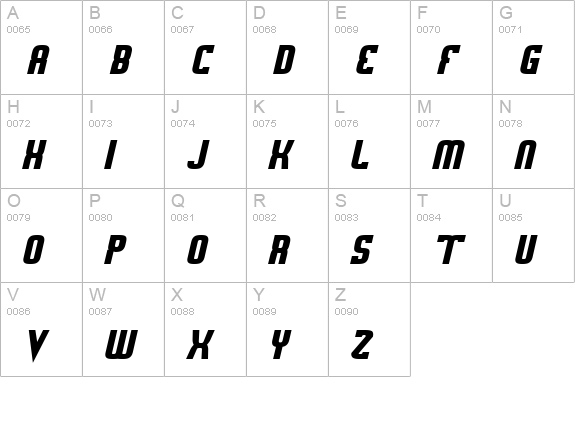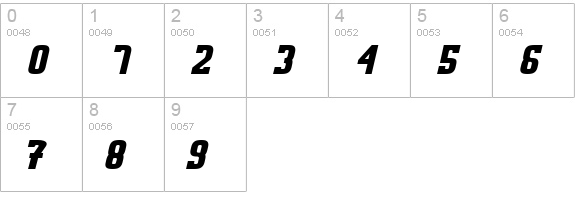
Sweden Funkis RegularOblique font is a modern and stylish typeface that exudes a sense of sophistication and elegance. Its sleek lines and unique slanted design make it perfect for adding a touch of contemporary flair to any project. The font's clean and minimalist aesthetic makes it versatile and suitable for a wide range of design applications. What sets Sweden Funkis RegularOblique font apart is that it is free to download at FontsMarket.com. This means that you can easily access this high-quality font without any cost, making it an excellent choice for designers and creatives looking to enhance their work with a premium typeface. With its bold yet refined look, Sweden Funkis RegularOblique font is sure to make a statement and elevate the visual appeal of any project it is used in.